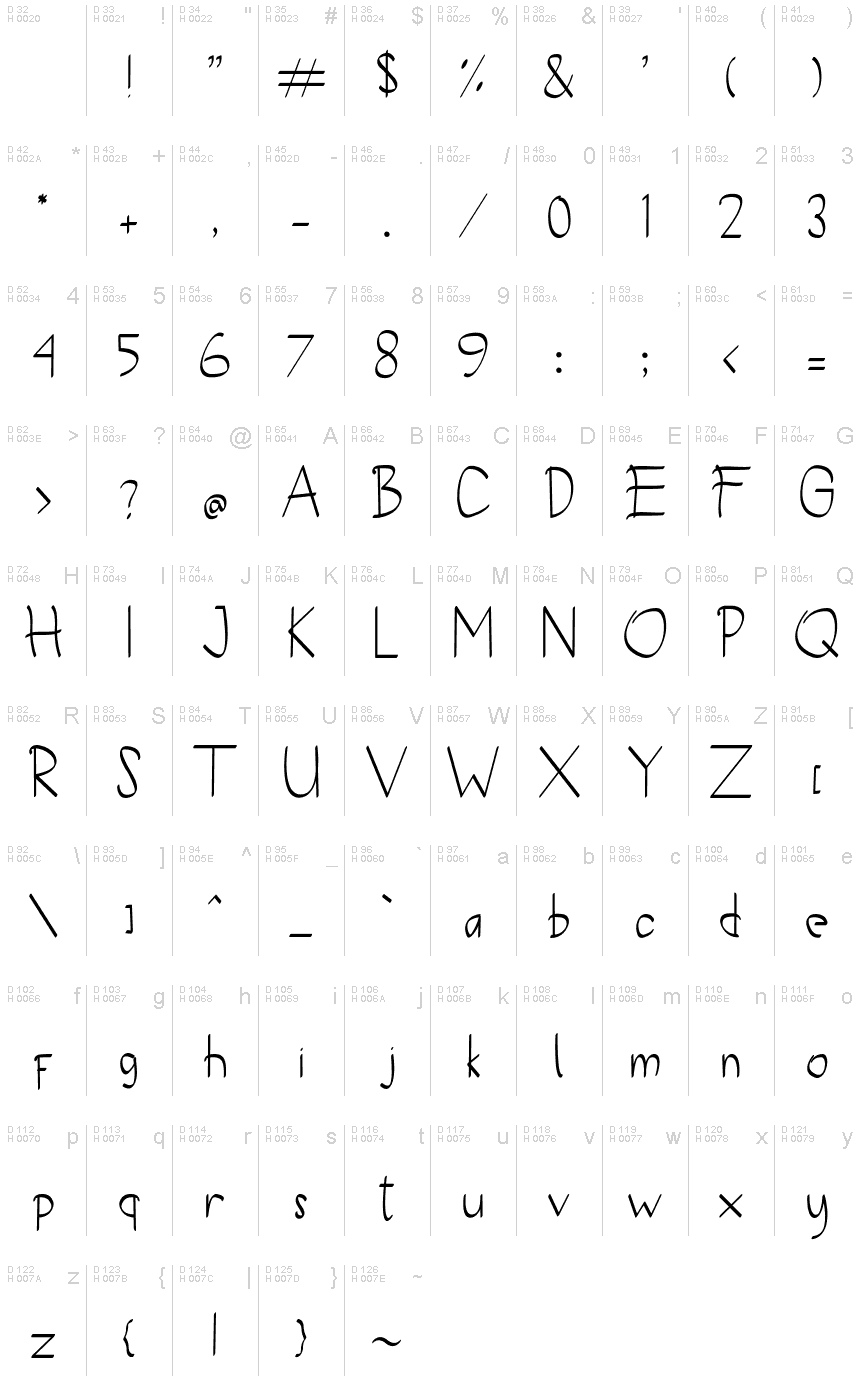
Vickydian
Vickydian, a captivating handwritten font by Bulbul Project, adds a touch of whimsy and elegance to any project. With its semi-light weight, this font effortlessly conveys a sense of playfulness and sophistication. Perfect for wedding invitations, greeting cards, and branding materials, Vickydian brings words to life with its charming curves and unique character. Whether you're designing a romantic event invitation or creating eye-catching social media graphics, Vickydian will infuse your projects with personality and flair. Let this delightful font captivate hearts and leave a lasting impression on your audience.